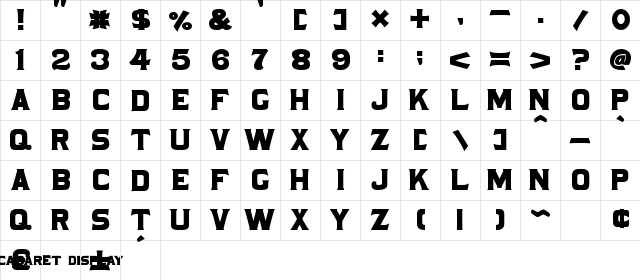
Cabaret Display Regular
| Designer | Joseph Dawson |
Design Context for Cabaret Display Typeface
Cabaret Display is built around its visual character rather than neutral utility — its distinctive forms are designed to make an impression at display sizes.
Font Pairing: Pair with a clean neutral sans-serif for body copy to let Cabaret Display's character lead without overwhelming the composition.
Pro Tip: Use Cabaret Display exclusively at display sizes — it was designed to be seen, not read at length. Let a neutral companion handle body copy.